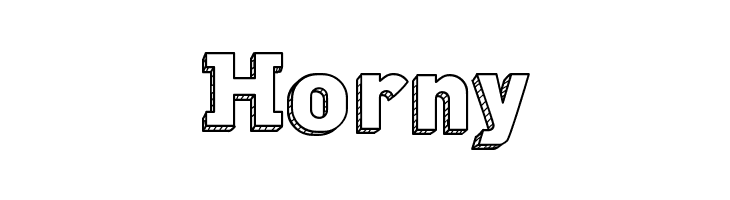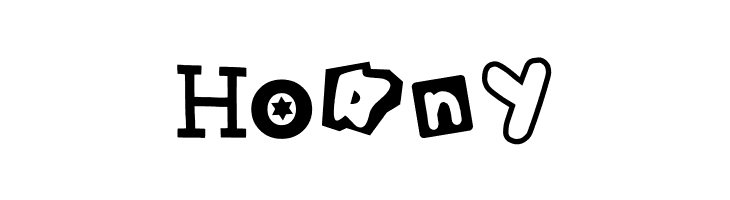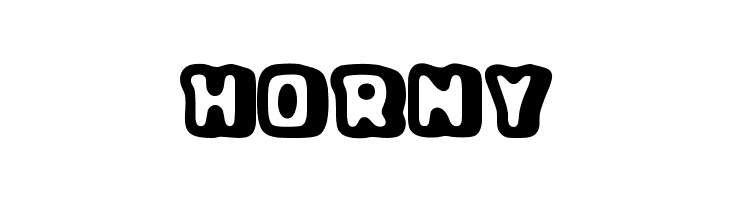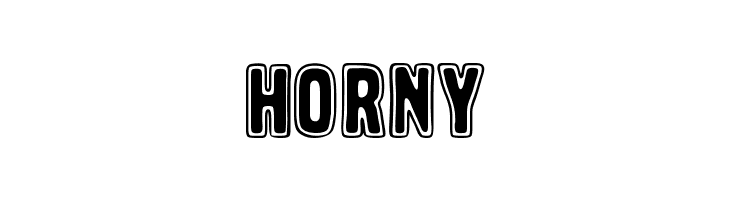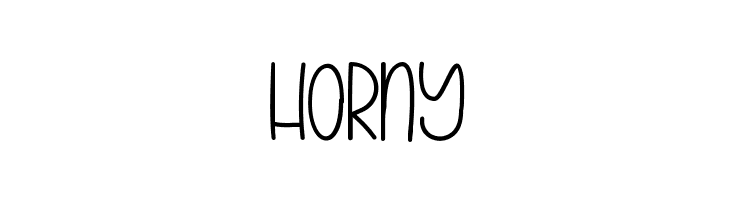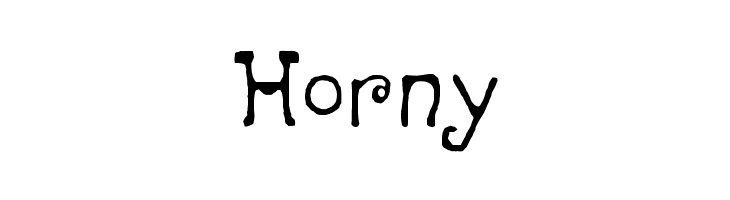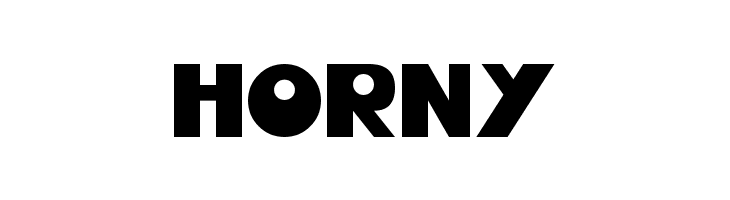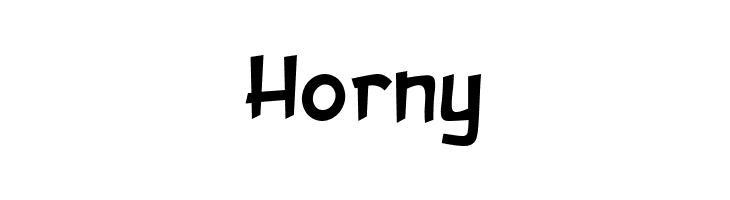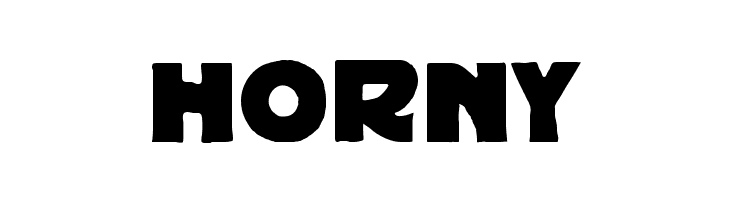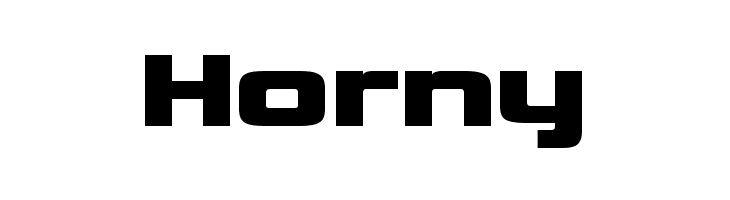
A bold, three-dimensional font with a playful shadow effect and textured interior.
A bold, playful font with rounded, outlined characters and a whimsical style.
A bold, outlined font with a playful and energetic style.
A playful, bold font with a hand-drawn, energetic style.
A bold, italic font with a dynamic and modern style.
A bold, geometric font with a strong, modern aesthetic.
A bold, geometric font with a modern and impactful design.
A playful, hand-drawn font with bold strokes and a whimsical style.
A bold, outlined dingbat font of department store-themed icons.
A bold, grungy font with a distressed, hand-drawn appearance.
A bold, jagged font with a horror-inspired, dramatic style.
A bold, jagged font with a horror-inspired, dripping effect.
A bold, jagged 3D italic font with a dramatic, dripping effect.
A bold, jagged font with a horror-themed, torn appearance.
A bold, jagged font with a horror-themed, edgy design.
A bold, jagged font with a distressed, eerie style.
A bold, horror-themed font with jagged, distressed edges.
A bold, jagged, and condensed italic font with a horror-themed aesthetic.
A jagged, horror-themed font with a distressed, dripping effect.
A bold, jagged font with a horror-themed, torn appearance.
A bold, jagged, and italicized font with a dramatic, horror-themed style.
A bold, jagged, and italicized font with sharp, irregular edges.
A bold, jagged, and italicized font with a fierce and dynamic style.
A bold, jagged font with a horror-themed, distressed style.
A bold, jagged font with a horror-inspired, dramatic style.
A bold, jagged, and italic font with a dynamic, edgy appearance.
A bold, jagged font with a warped, horror-inspired style.
A bold, condensed font with jagged edges, ideal for horror-themed designs.
A bold, jagged, and dynamic font with a warped, italic style.